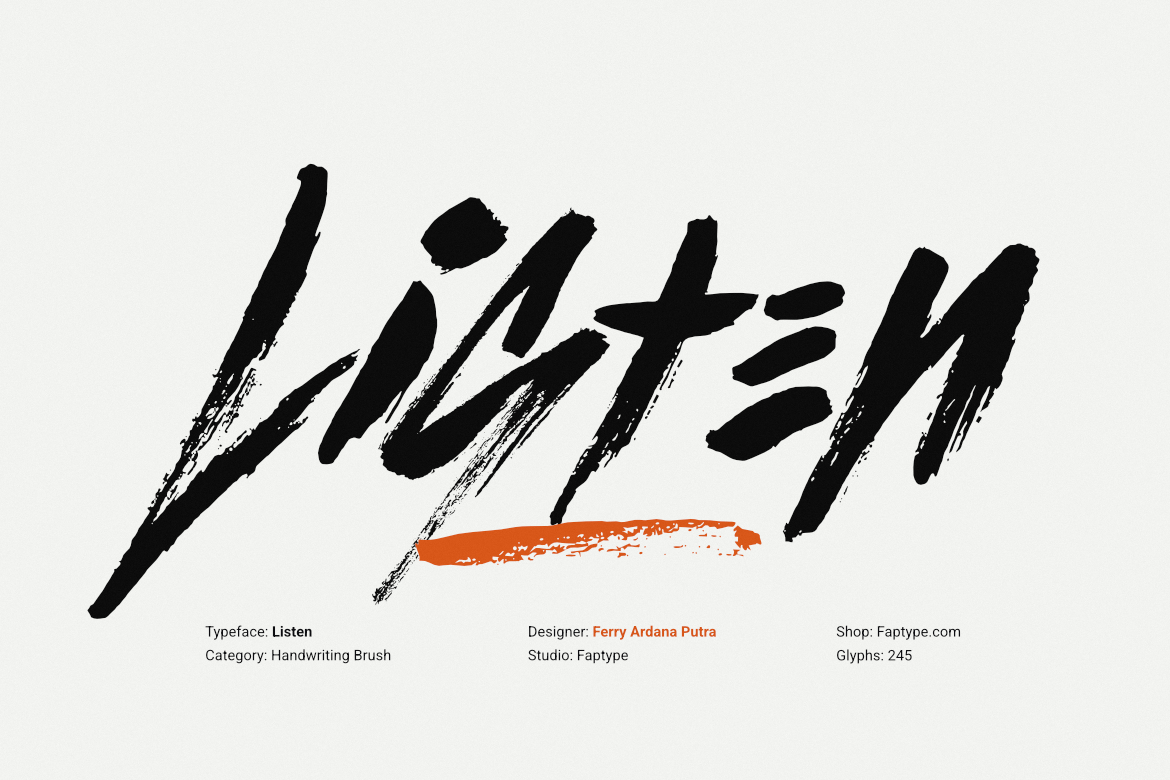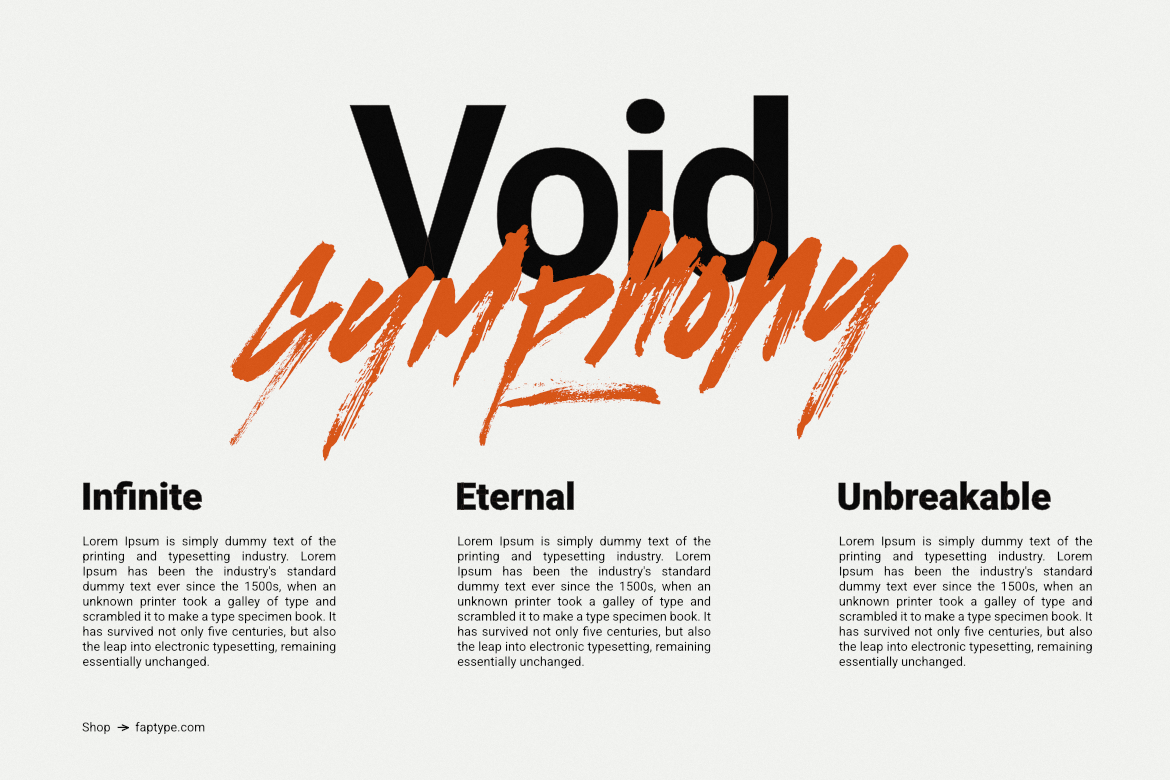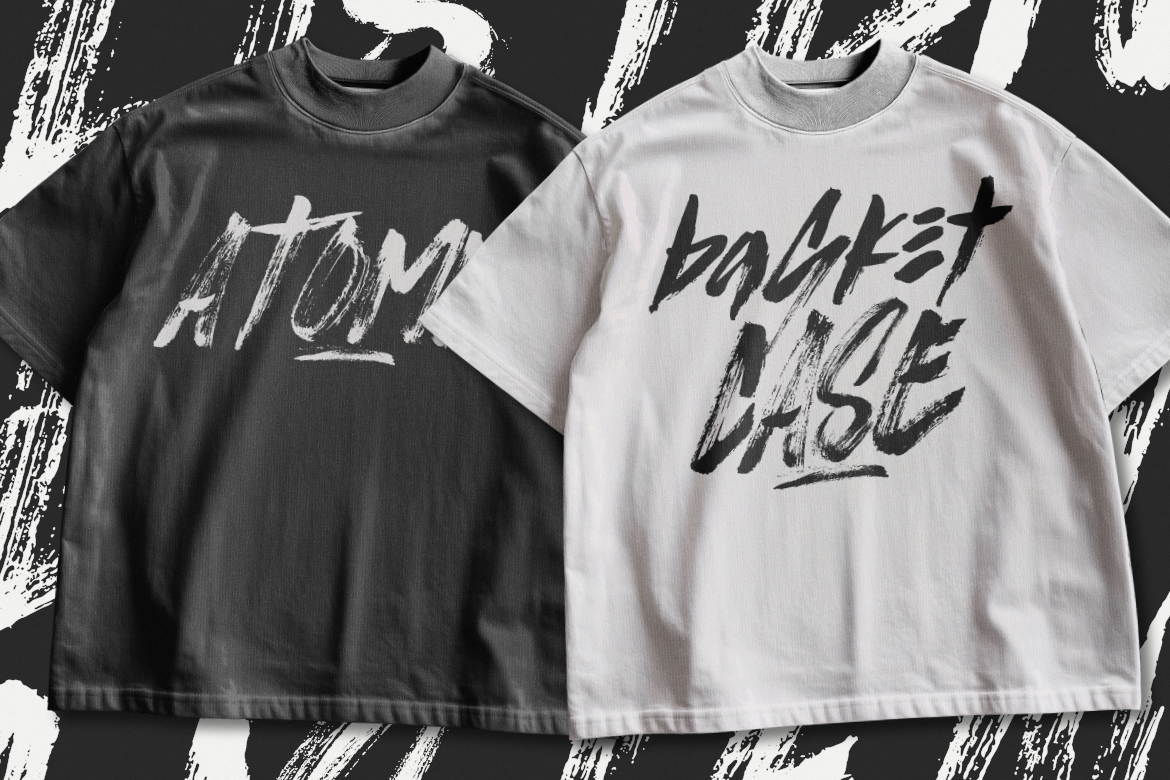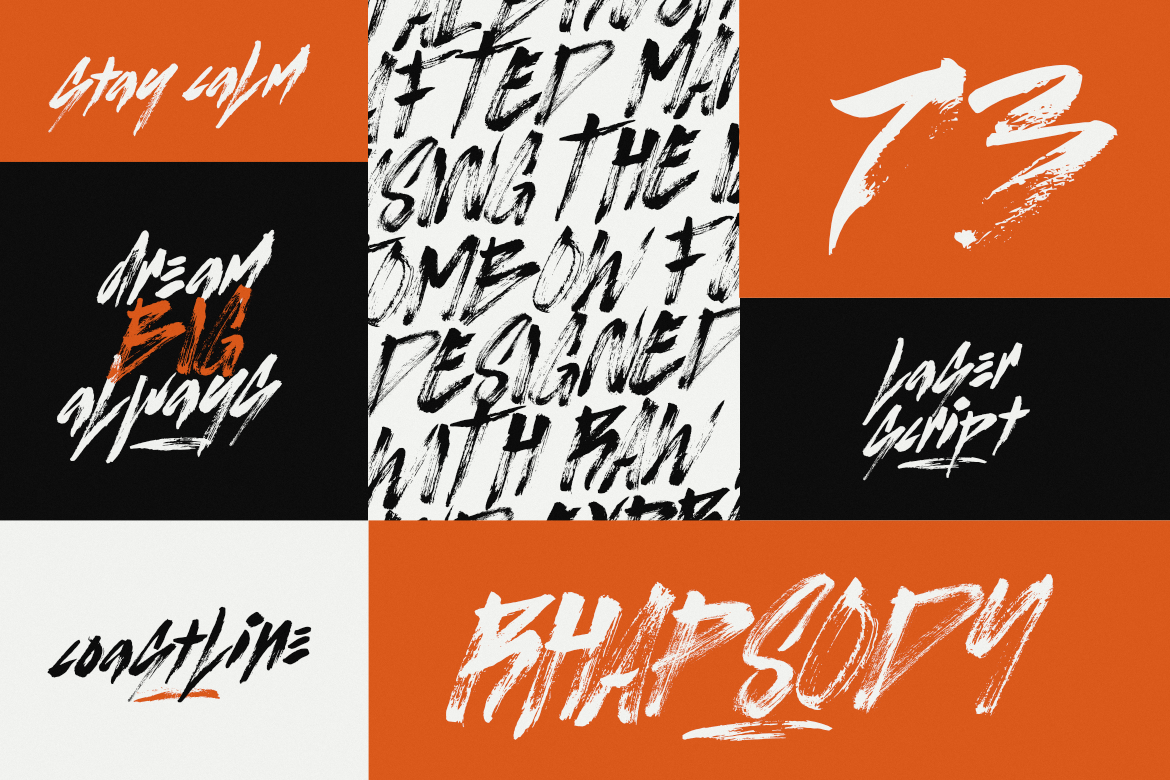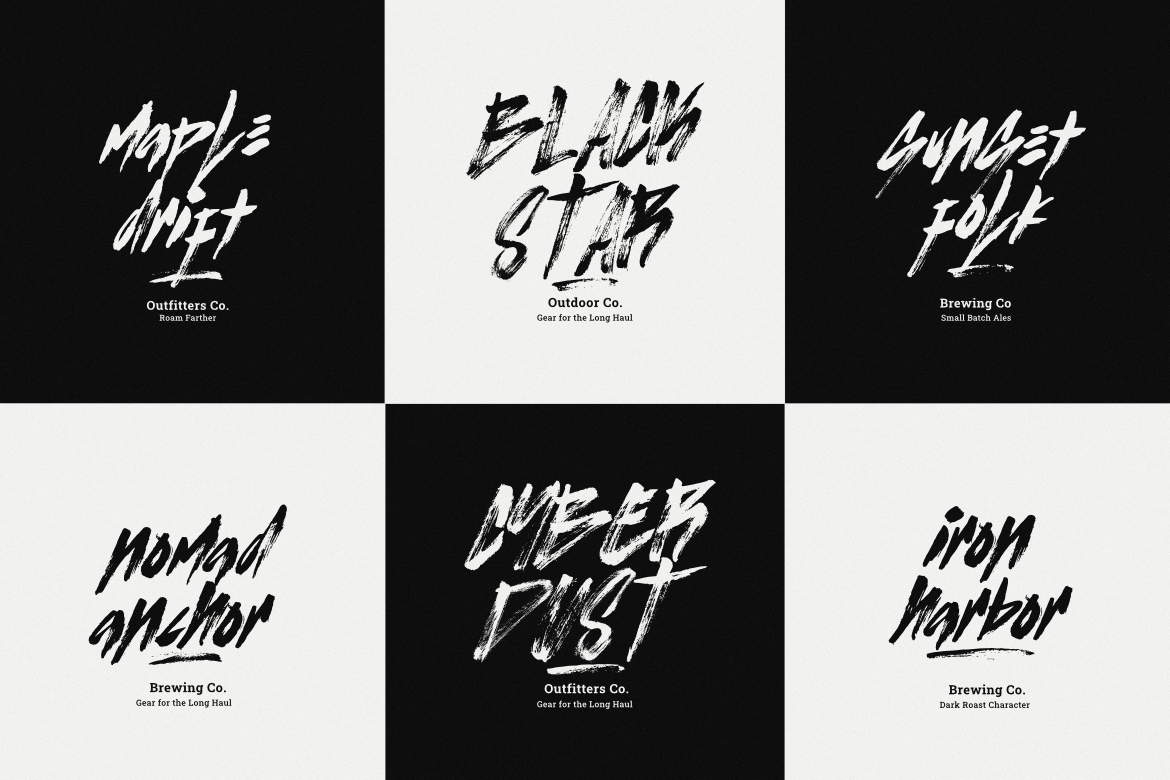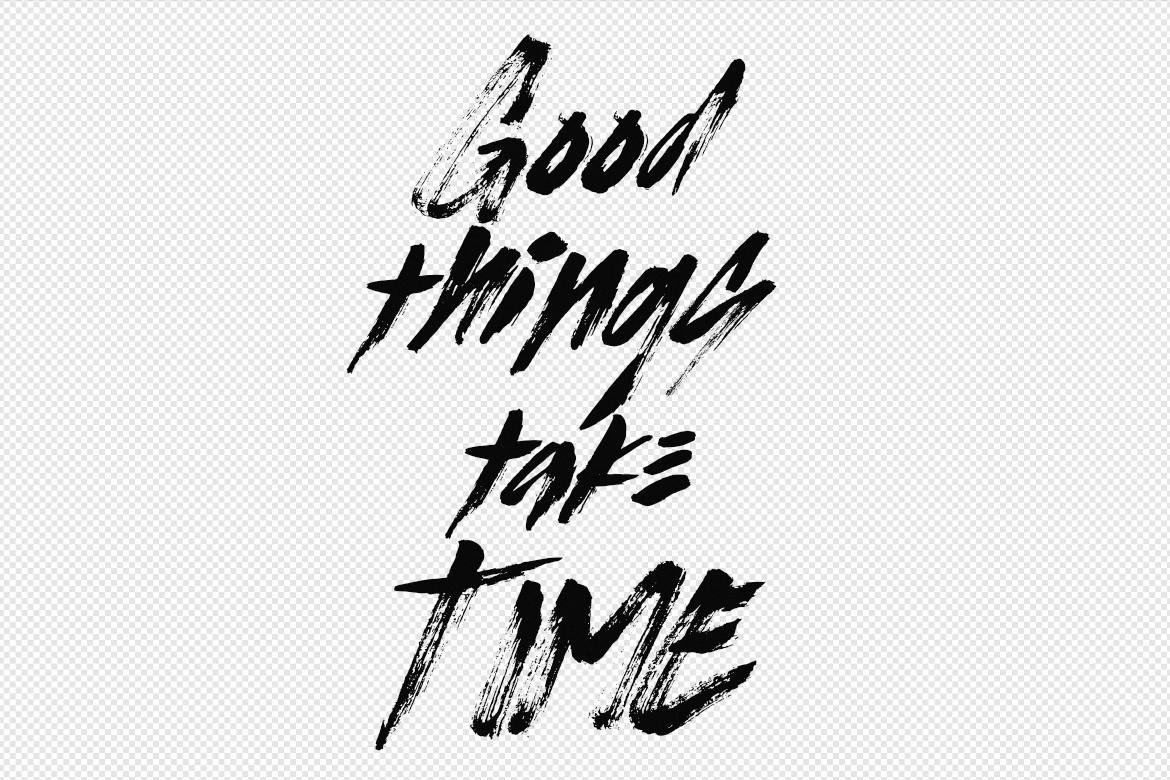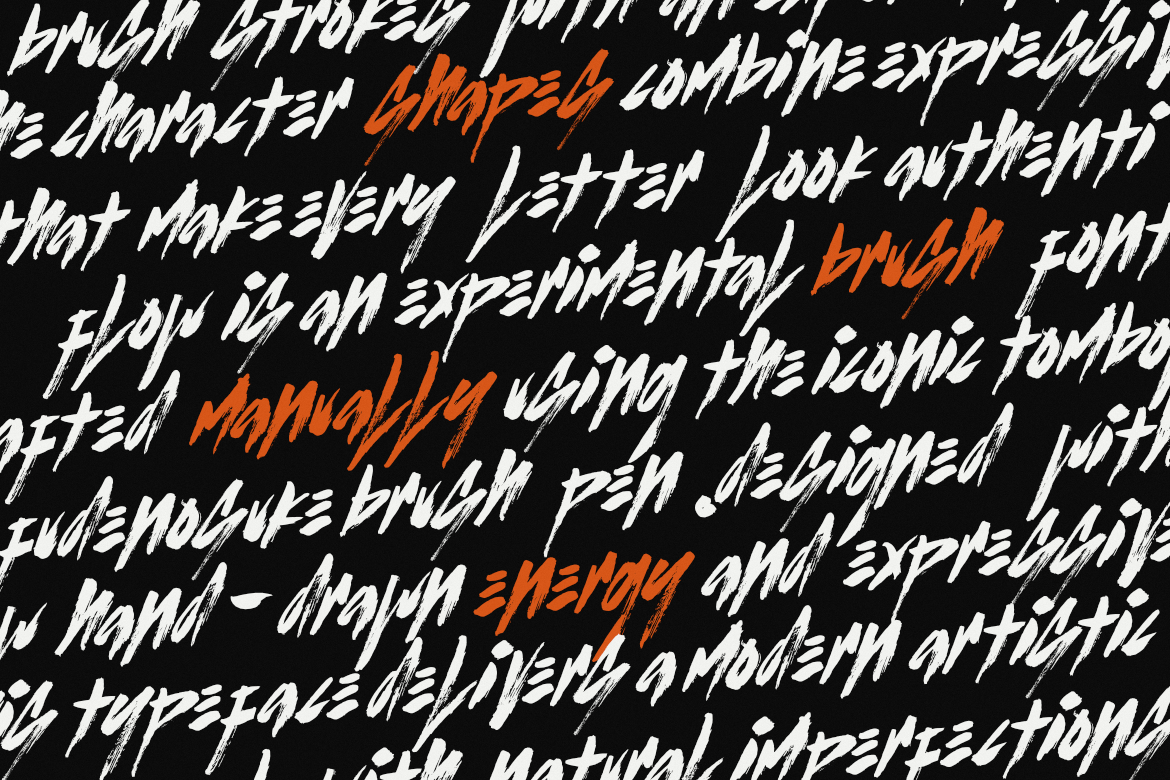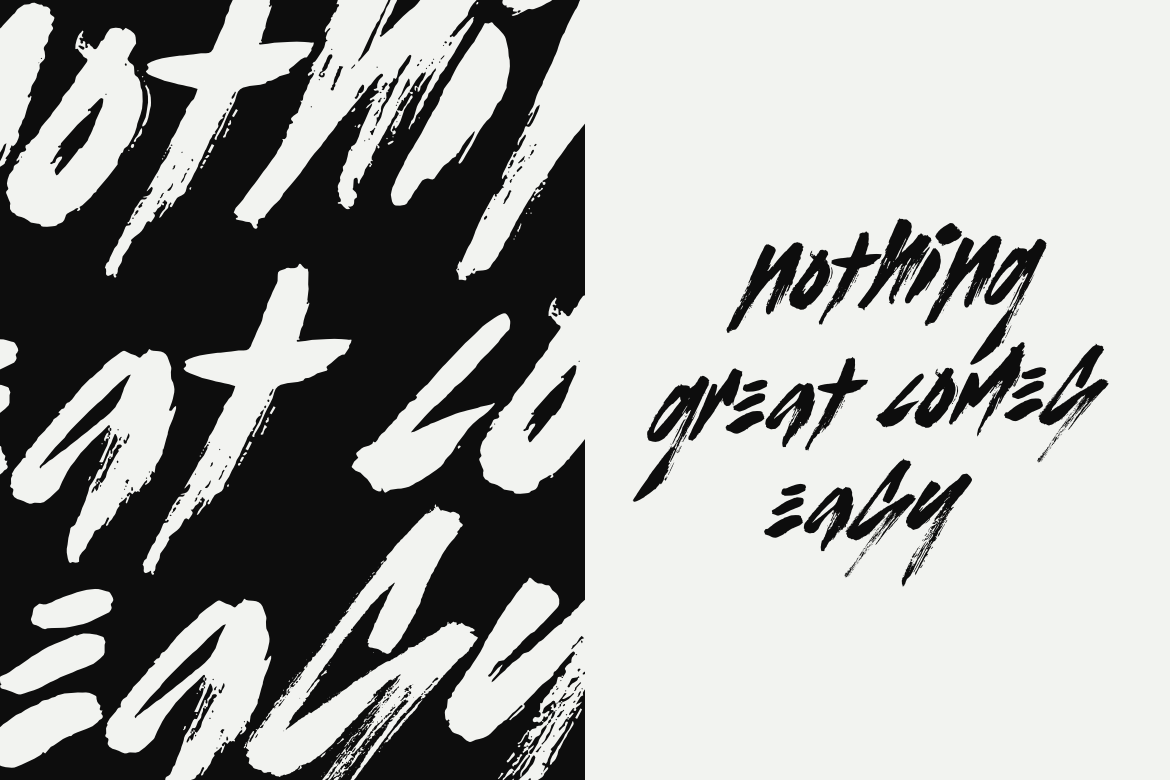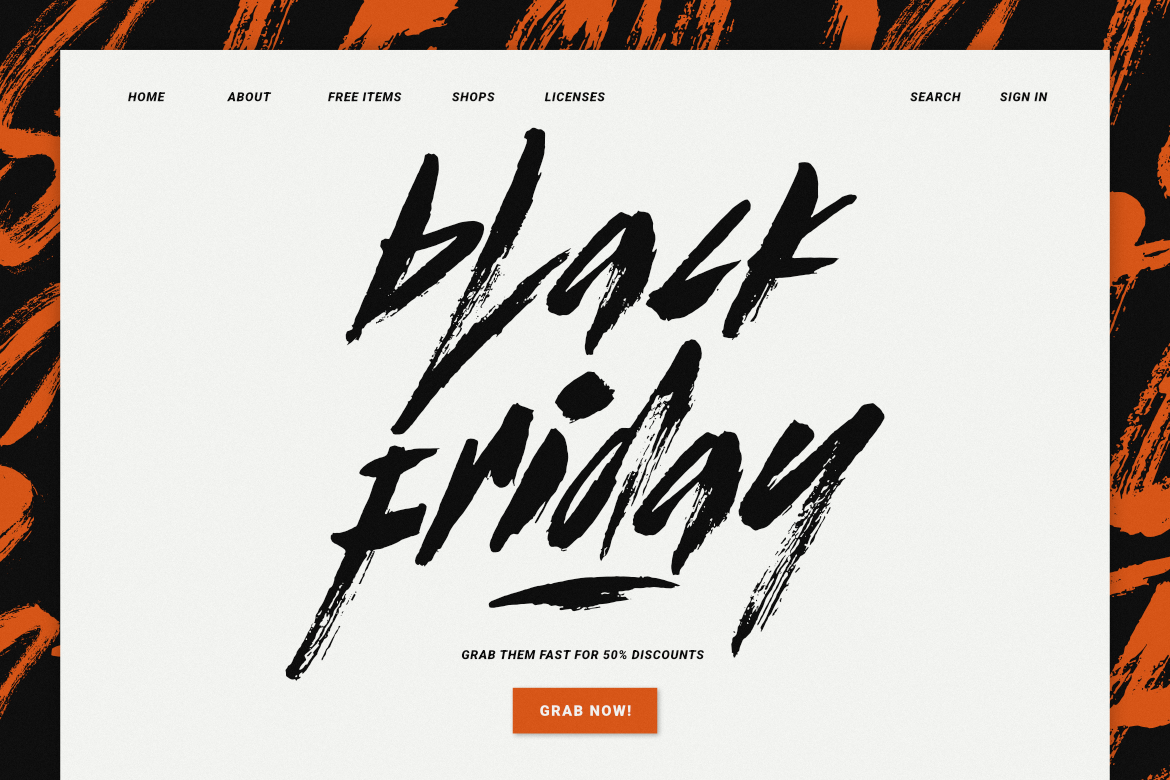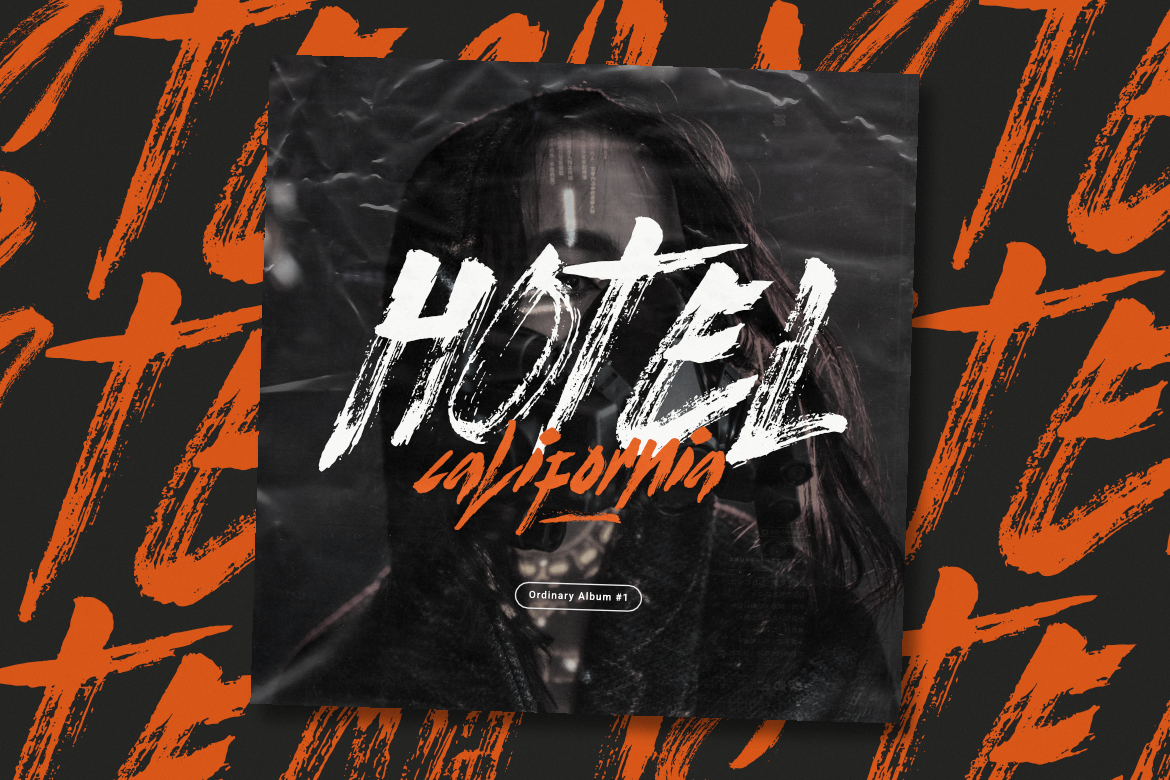
Listen – Handwriting Brush Font is a raw and expressive brush typeface created with a Tombow Fudenosuke Brush, capturing the spontaneous energy and imperfect texture of real hand lettering. Its sharp strokes, dry brush details, and irregular ink texture give the letters an authentic handmade appearance with a bold and energetic personality.
Designed with a strong handwritten feel and dynamic italic movement, Listen combines rough brush textures with expressive letterforms. The natural imperfections throughout the characters create a distinctive visual style that feels fast, spontaneous, and genuinely hand-drawn rather than digitally polished.
The font includes uppercase and lowercase letters, along with numerals, symbols, and punctuation, giving you a complete character set for creating expressive typography across a wide range of creative projects.
Listen – Handwriting Brush Font is designed for anyone looking for typography with a raw, energetic, and authentic handwritten character. Its dry brush texture and sharp strokes add movement and personality while maintaining strong readability.
The rough edges and natural ink breaks make every word feel slightly different from a perfectly digital typeface. This gives Listen a more organic and human appearance, especially when used in large headlines or expressive typographic compositions.
Font Features
- Handcrafted using a Tombow Fudenosuke Brush
- Raw and expressive handwritten style
- Dry brush and rough ink texture
- Sharp and dynamic brush strokes
- Strong italic movement
- Authentic hand-painted appearance
- Uppercase letters
- Lowercase letters
- Numerals
- Symbols
- Punctuation
- Multilingual language support
With its bold movement and distressed brush texture, Listen – Handwriting Brush Font brings a strong handmade personality to any composition that needs expressive and energetic typography.
The Character of Listen
What makes Listen distinctive is its imperfect brush texture. Instead of creating perfectly smooth digital strokes, the typeface preserves the roughness and irregularity associated with a real brush.
The combination of thin scratch-like details, heavier ink strokes, sharp endings, and slanted letterforms gives Listen a rebellious yet artistic character. It feels spontaneous, fast, and handcrafted.
Whether you use it for a bold headline or combine it with other typefaces, Listen adds an unmistakable human touch to your typography.
Features of Listen Font
Uppercase & lowercase letters
Numbers & punctuation
Multilingual support
Dry brush swashes included